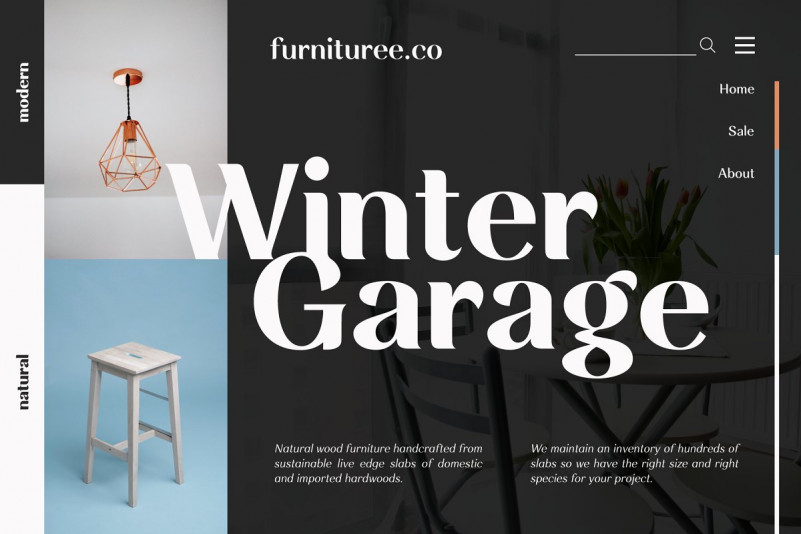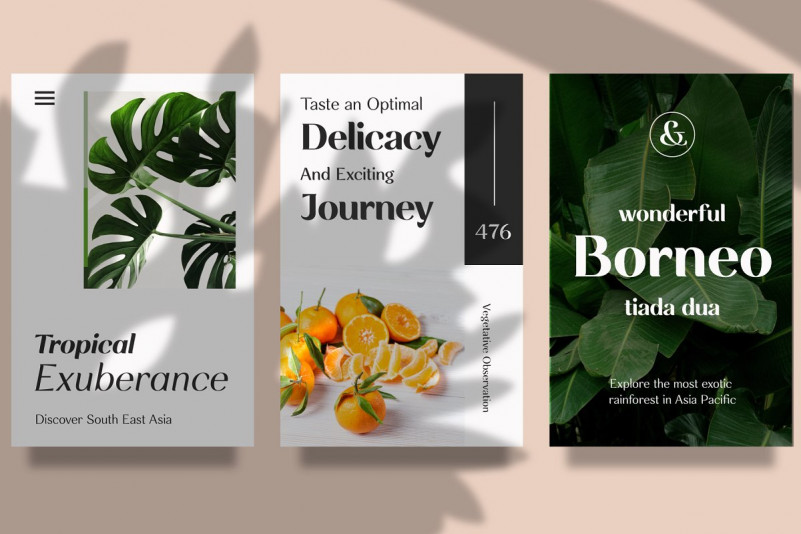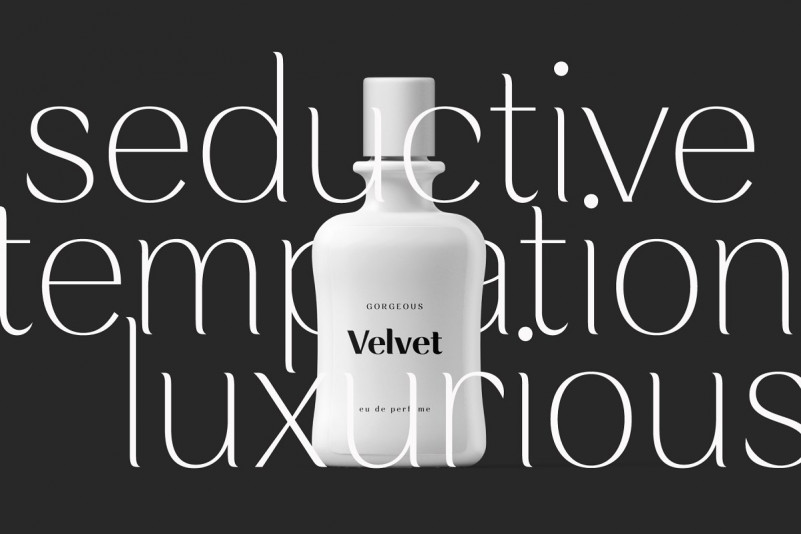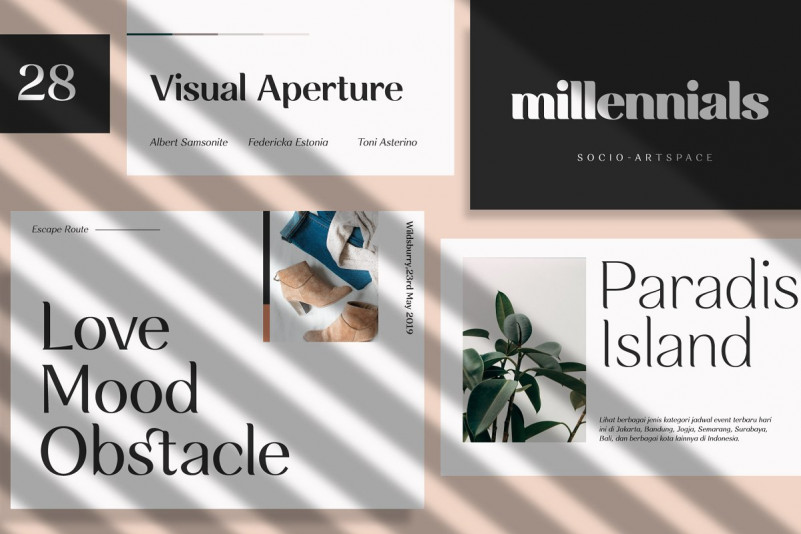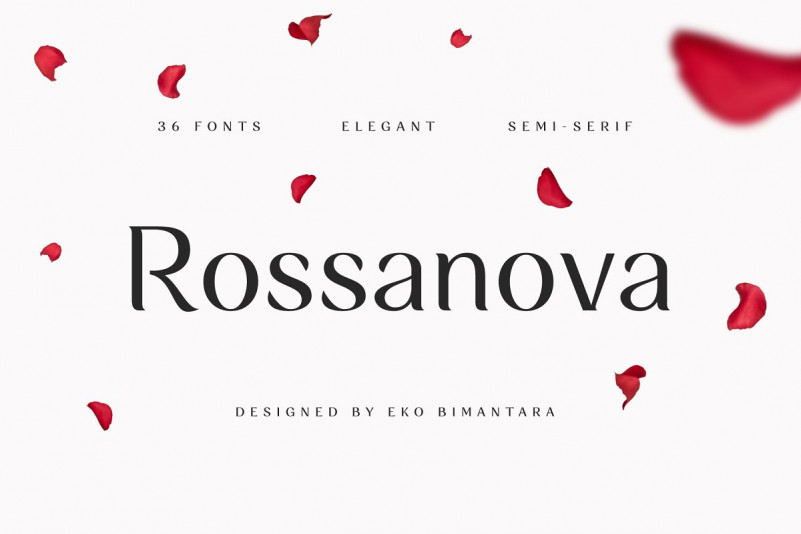
Thank you for looking Rossanova Serif font. This is an elegant yet simple serif font that is the perfect fit for elegant logo + branding projects, invitation cards, magazines and so much more. It is designed and shared by Eko Bimantara. Its consist of 36 fonts; 2 optical size, 8 weight from thin to black with each matching italics. Rossanova is enrich with beautiful personality, its shaped in high contrast strokes for the normal optical style and moderate contrast strokes for the text styles which fit for reading. Contain more than 470 glyphs with some opentype features e.g, stylistic alternates, ligature, discretionary ligature, old number, variation of figures e.t.c.